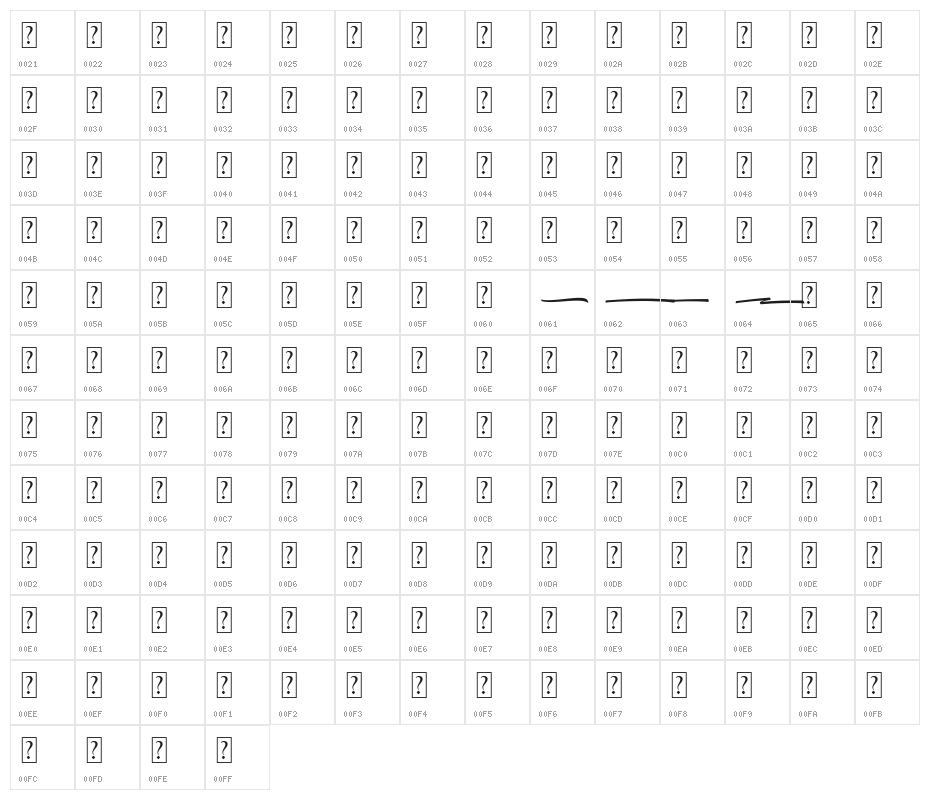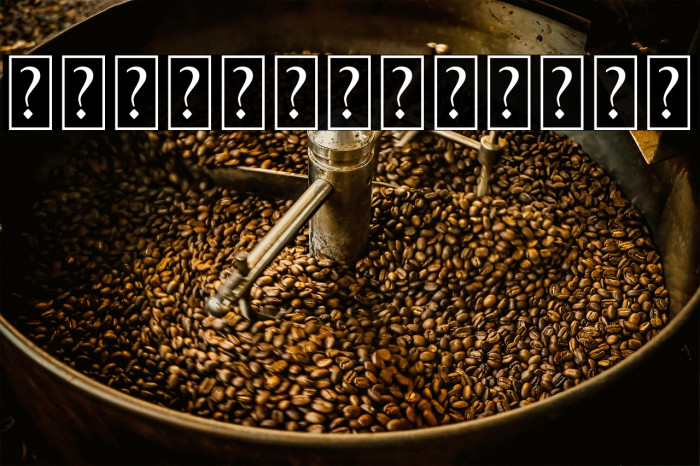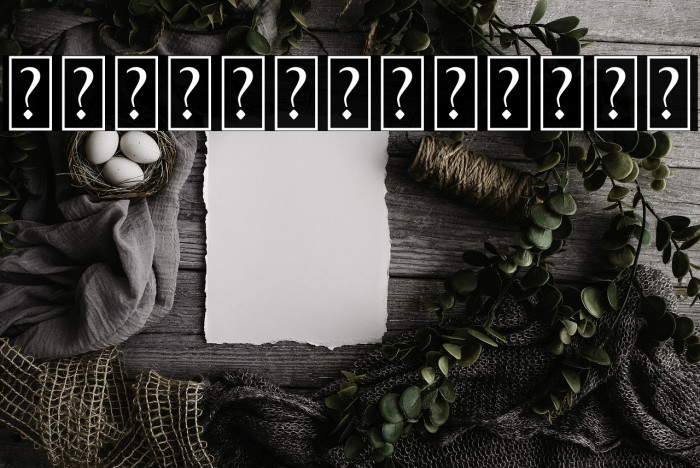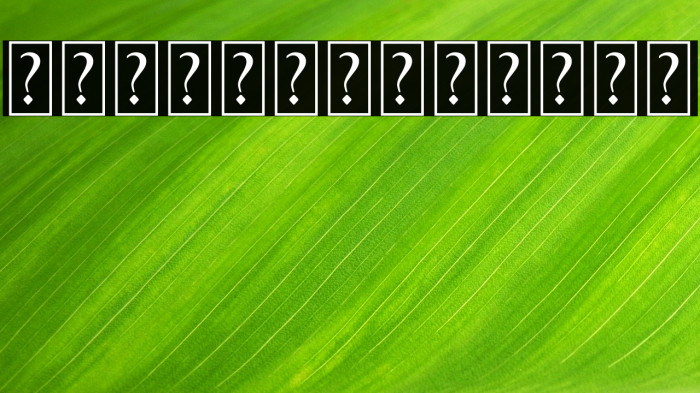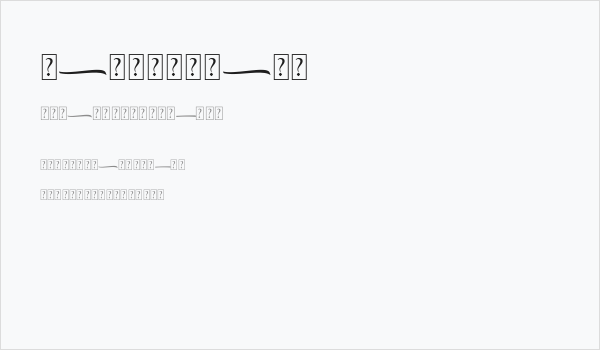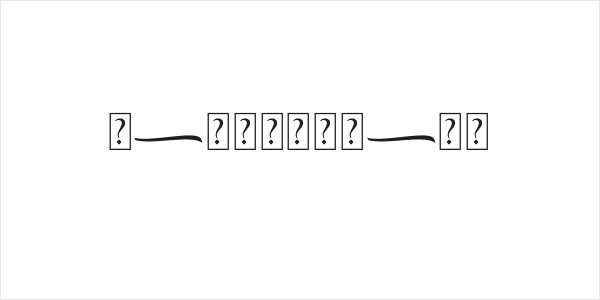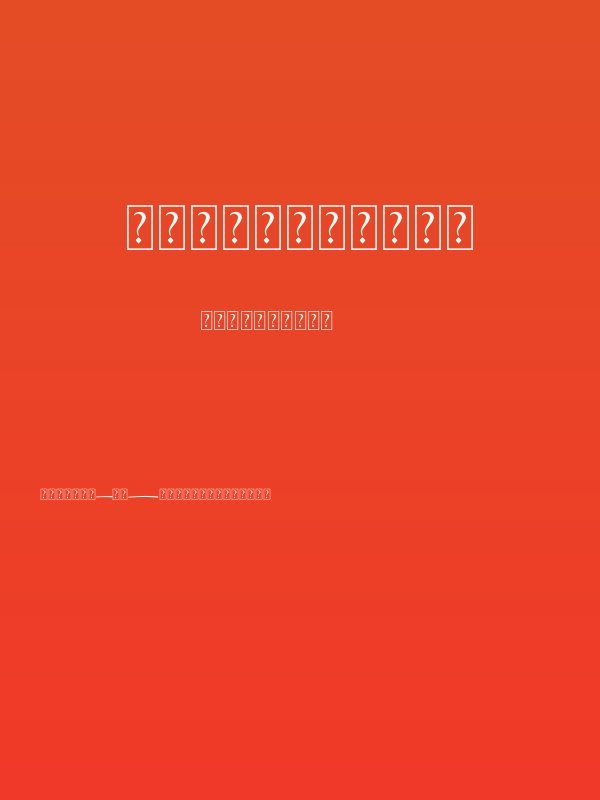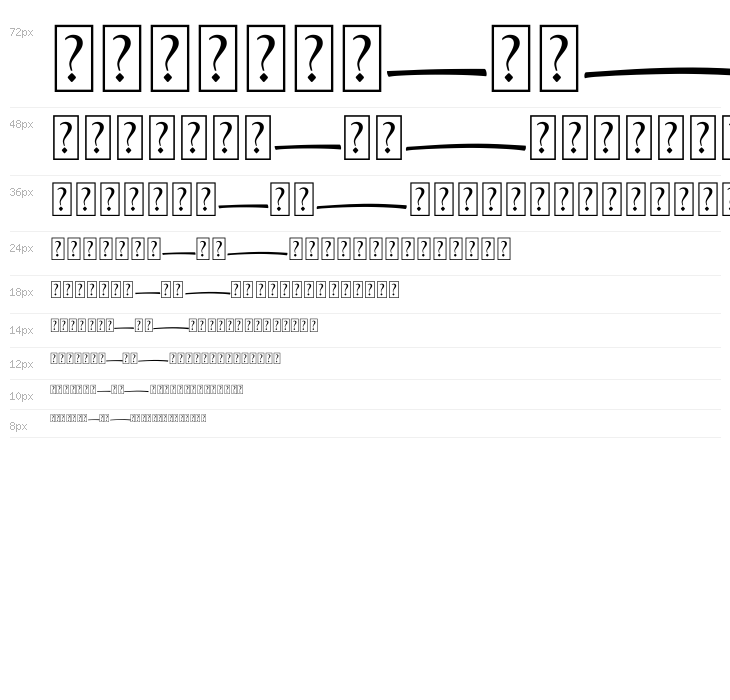
Margo Swash Font
Margo Swash Description
This font is characterized by its elegant and flowing swashes, giving it a sophisticated and artistic appearance. The letters are adorned with intricate curves and flourishes, creating a sense of movement and grace. The design is highly decorative, making it ideal for projects that require a touch of elegance and creativity. The font's unique style is both eye-catching and memorable, making it suitable for a variety of design applications.
| Proposed Projects | Ideal for wedding invitations, luxury branding, artistic posters, and elegant packaging designs. |